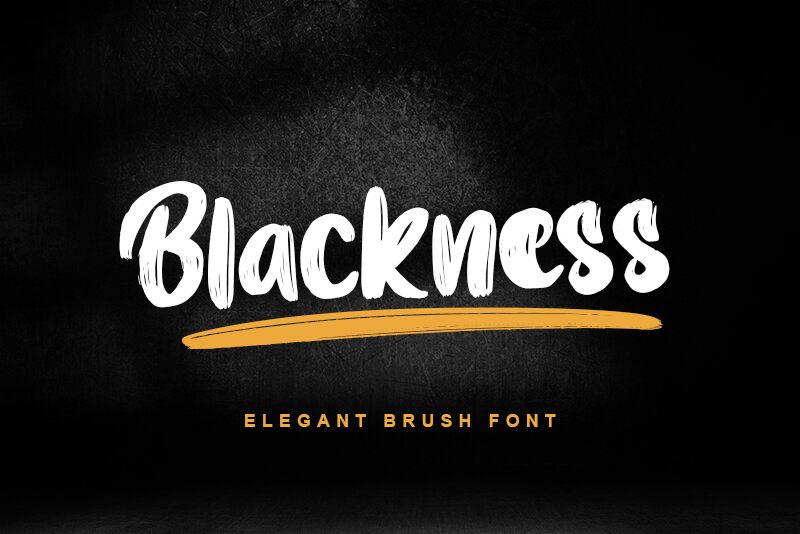
Blackness, crafted by the innovative Letterara, stands out as a semi-light brush font that evokes an air of elegance and originality. With its natural handwritten aesthetic, Blackness effortlessly enhances creative projects, from striking headlines and impactful titles to sophisticated logos and compelling branding materials. Ideal for posters, books, and a myriad of other design ventures, this font's versatility shines in both print and digital realms.
The PUA encoding ensures that designers can seamlessly access all the delightful glyphs and swashes Blackness has to offer, making it an indispensable asset for those seeking to infuse their work with a touch of personalized flair.